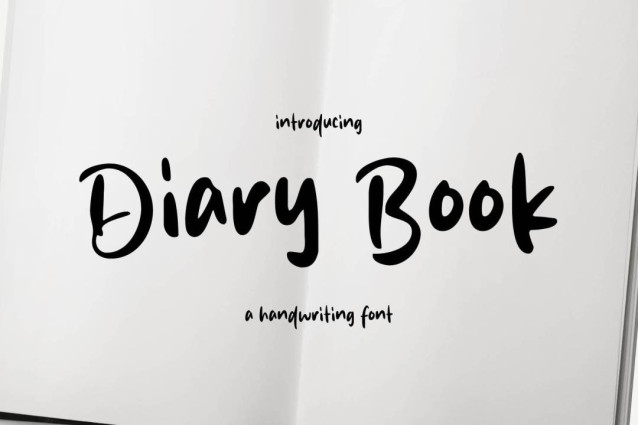
Diary Book Font
Diary Book Font is a simple and friendly handwritten font. Its natural and unique style makes it incredibly fitting to a large pool of designs. The only limit is your imagination!